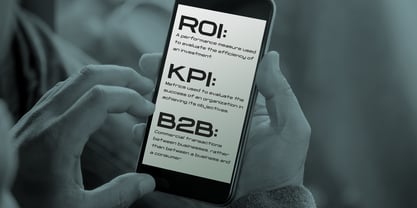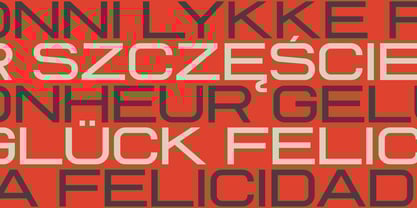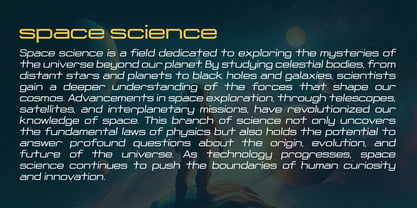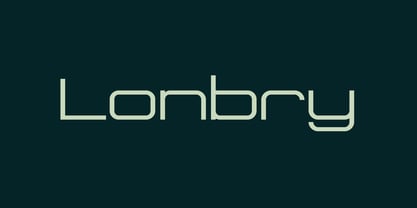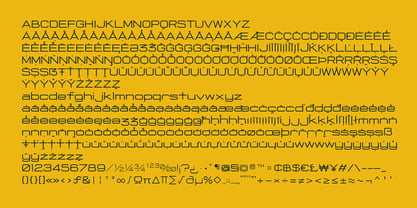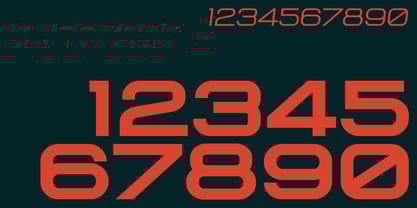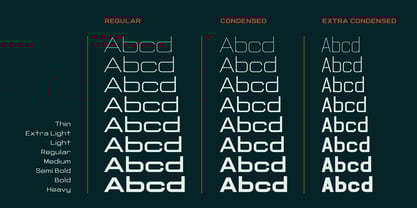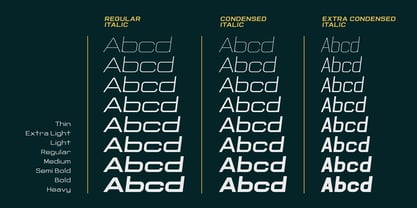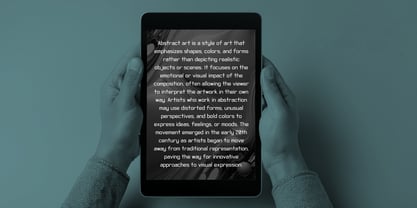
Lonbry
by Outerend
The Lonbry Font Family was designed by Taka Ikari and published by Outerend. Lonbry contains 48 styles and family package options. More about this family
Introducing our new font “Lonbry” - a sleek, modern sans-serif typeface designed to elevate your creative projects. With 48 versatile styles and a range of weights, it’s the perfect choice for app and interface design, TV/film titles and credits, logo design, and branding. Its clean, contemporary aesthetic ensures clarity and impact across digital and print mediums, making it an ideal solution for any design need.
Designers: Taka Ikari
Foundry: Outerend